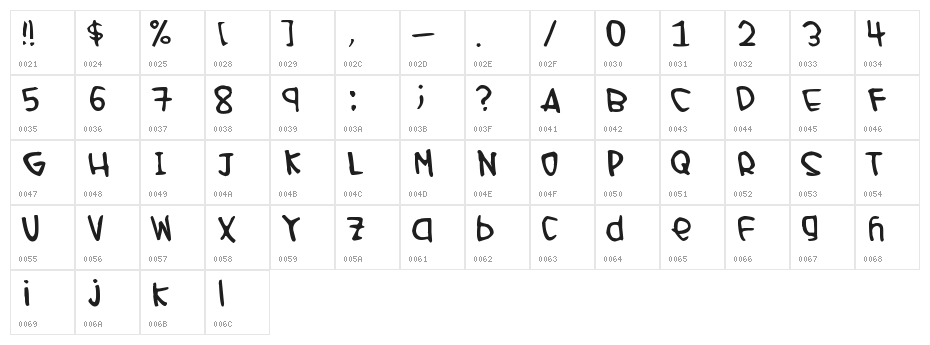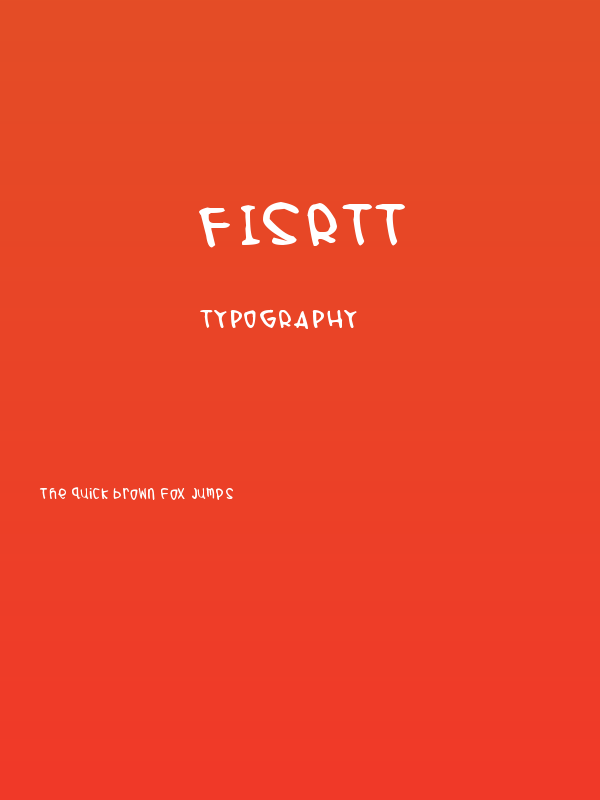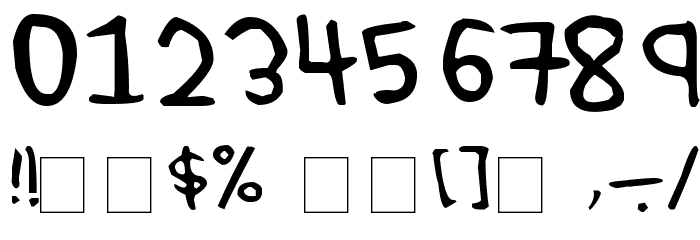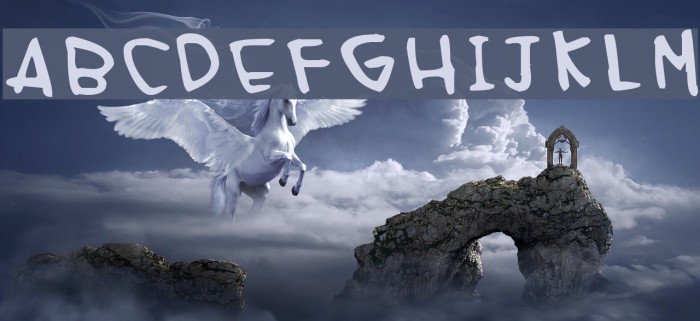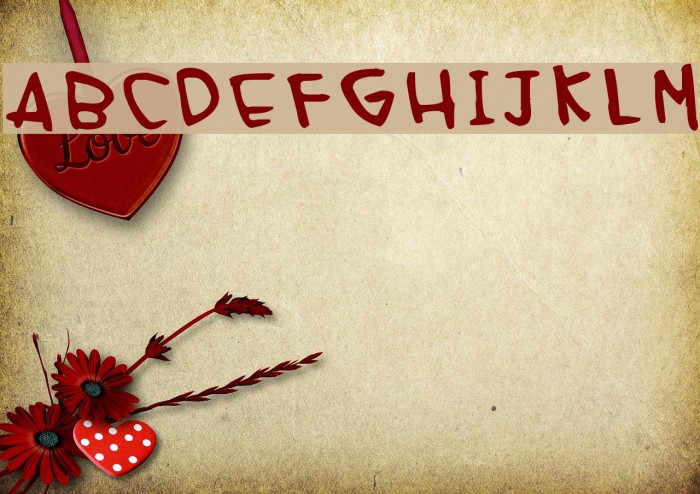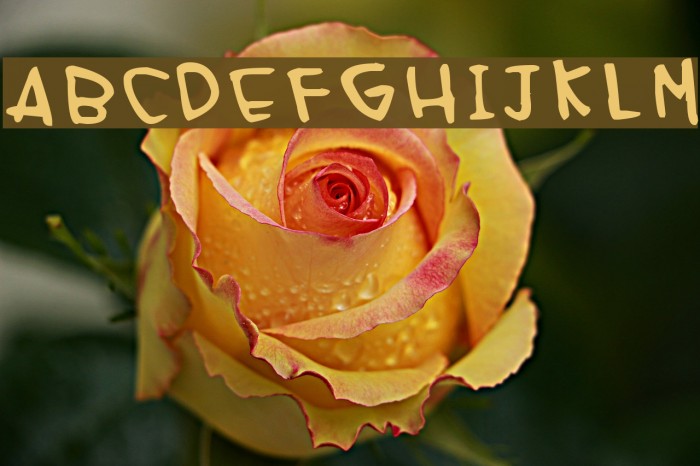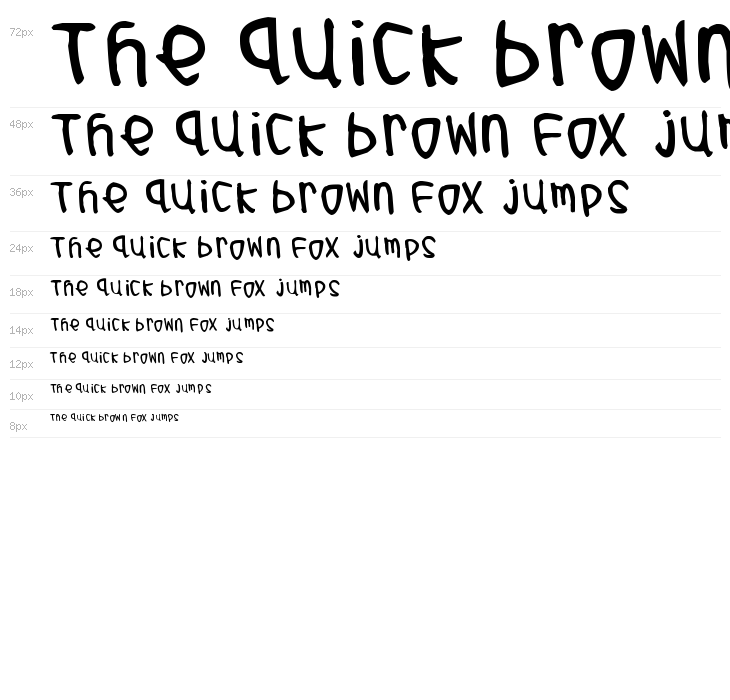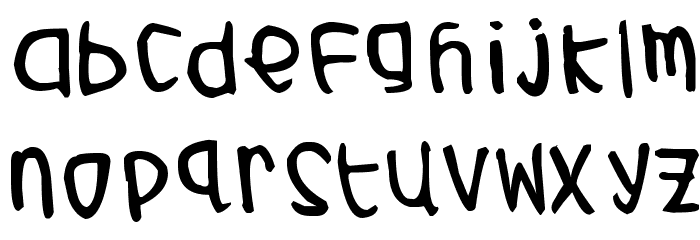
fisrtt Font
fisrtt Description
This font exudes a playful and informal vibe, characterized by its hand-drawn, slightly irregular letterforms. The strokes are bold and rounded, giving it a friendly and approachable appearance. The uppercase and lowercase letters maintain a consistent style, with a whimsical touch that suggests a casual, handwritten feel. The numbers and special characters follow the same playful design, ensuring uniformity across all glyphs. This font is perfect for projects that require a personal, human touch, such as children's books, greeting cards, or creative branding materials.
| Proposed Projects | Ideal for children's books, greeting cards, creative branding, and informal invitations. |